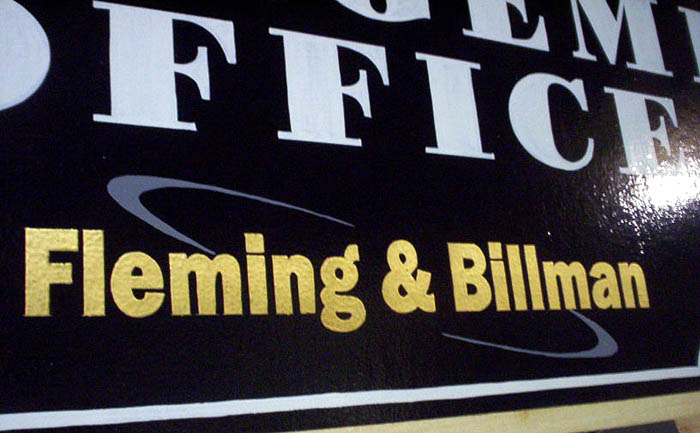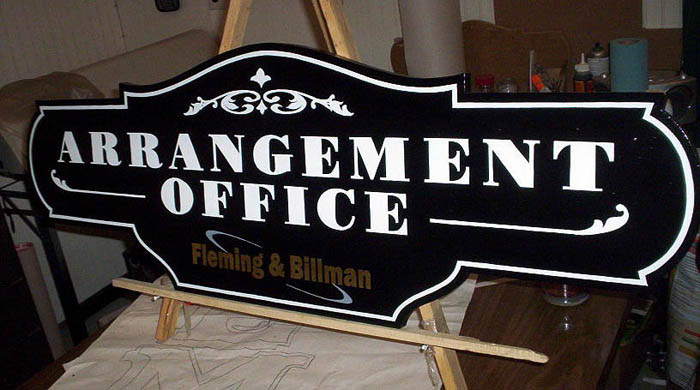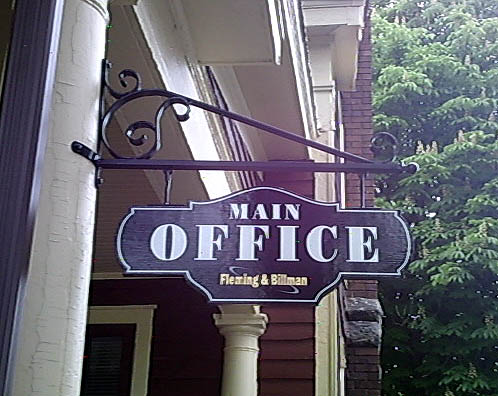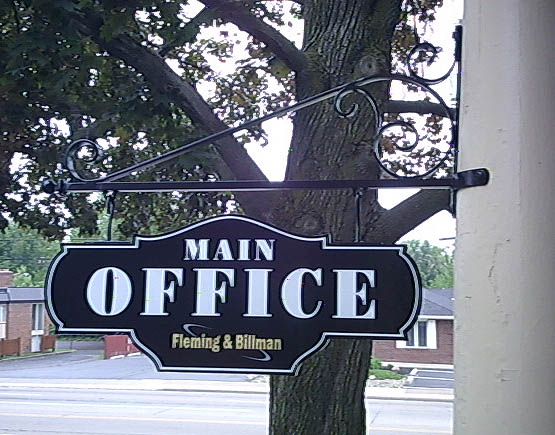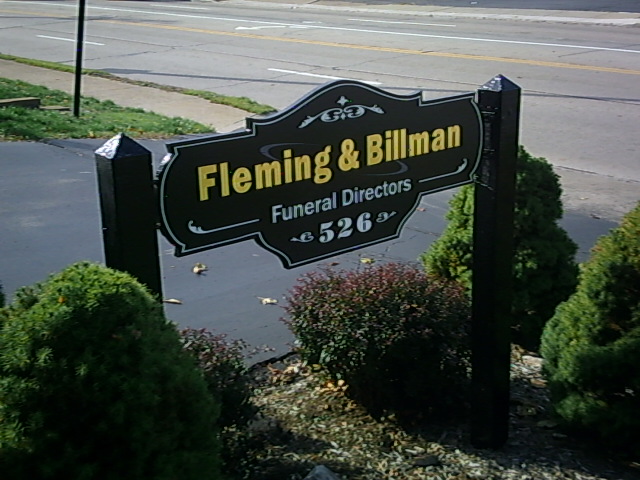
A Touch of Gold
Here's a couple signs I finished up. The bracket is hand forged... I had to compensate for the taper on the column. All hand work from cutting blanks to lettered from pounce pattern on 3/4" MOD g2s. The small ID tag on the signs is 23K. It really is hard to capture gold's impact on film/flash drive.
Re: A Touch of Gold
And we continue the rework of the businesses image. Double sided... two more to go and some lighting.
Re: A Touch of Gold
Another one installed. Designed to fit between existing poles.
One more and maybe a door or two.